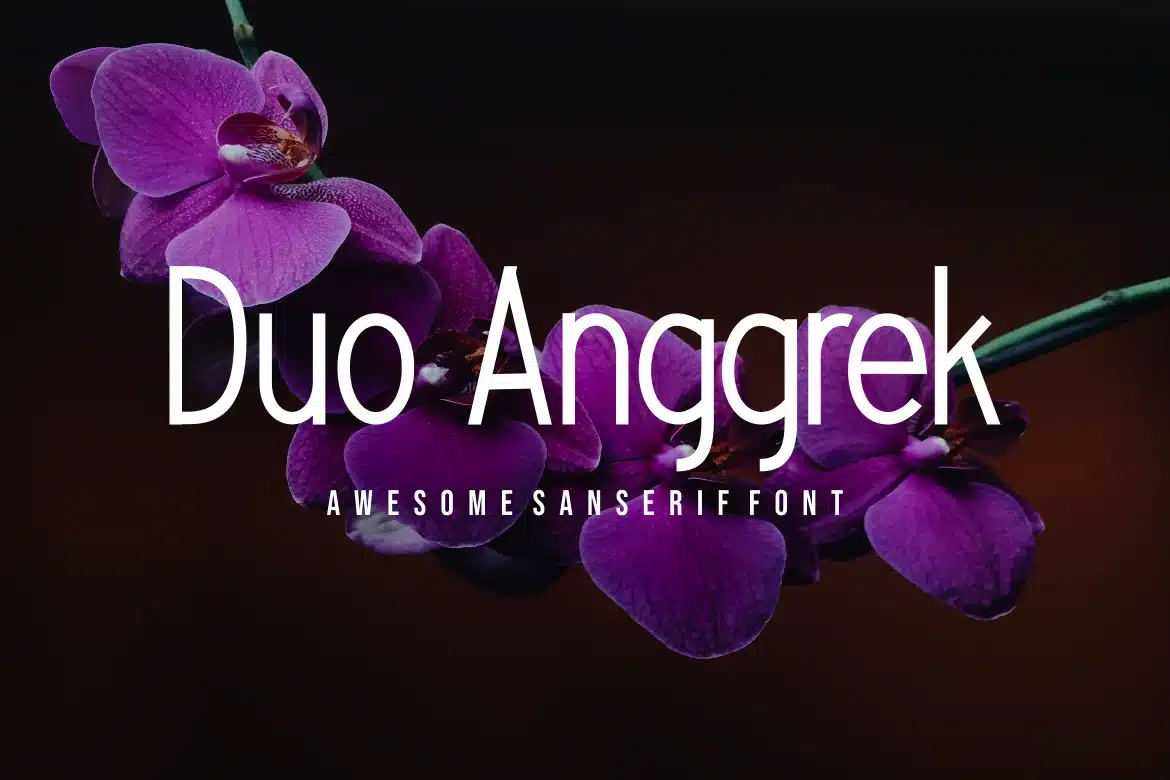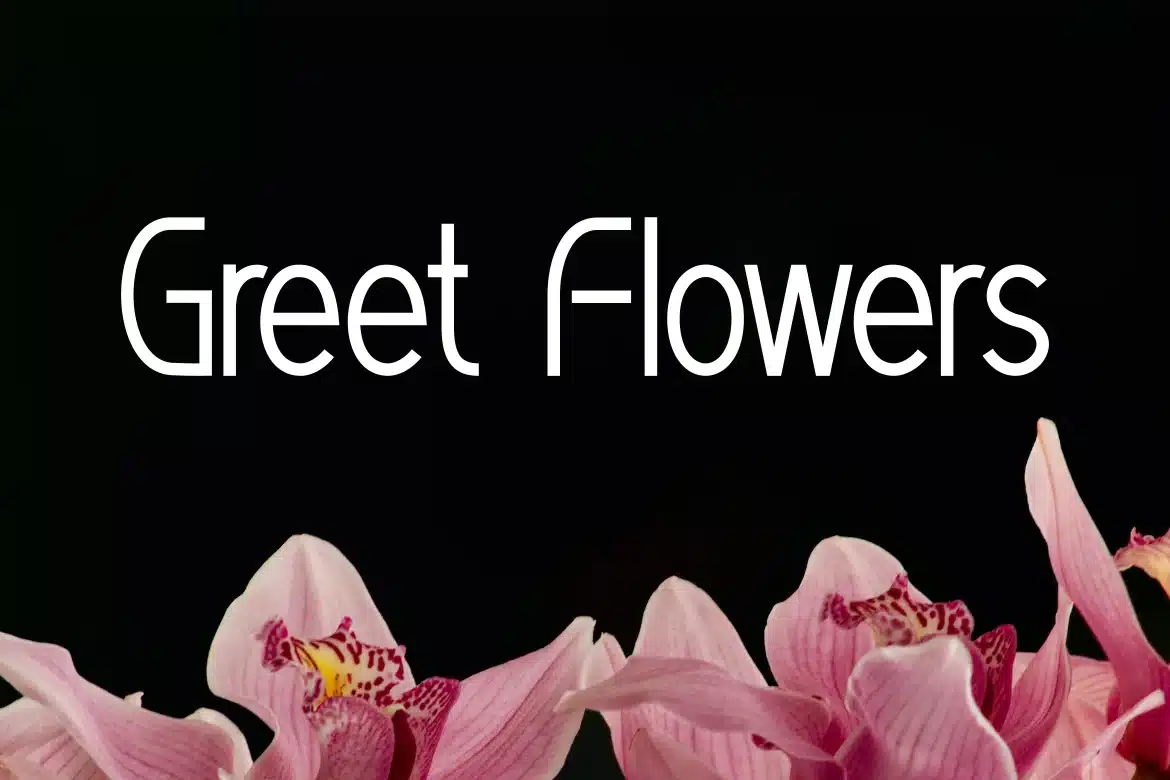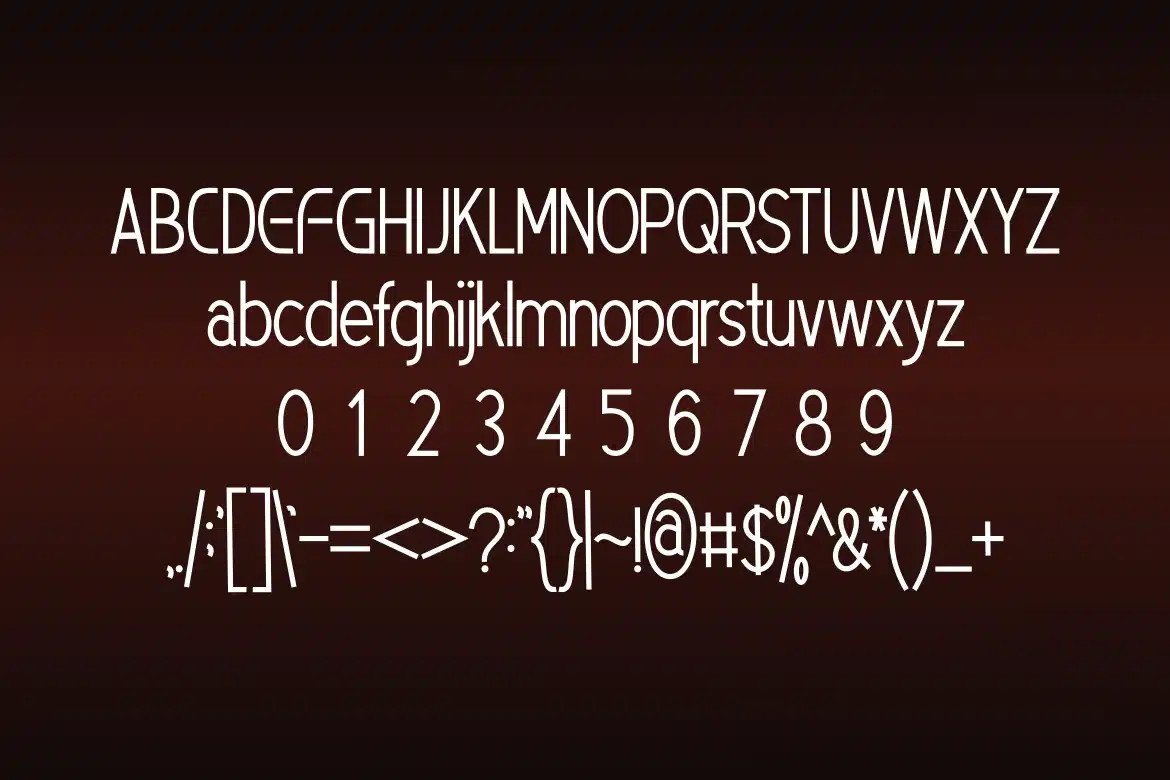
Duo Anggrek Fonts
Introducing our new product Duo Anggrek Fonts modern fonts.
Duo Anggrek Fonts modern font is a bold and authentic display font. The font is suitable for any branding project like logo, t-shirt printing, esport, and many more. Outstanding in a wide range of contexts.